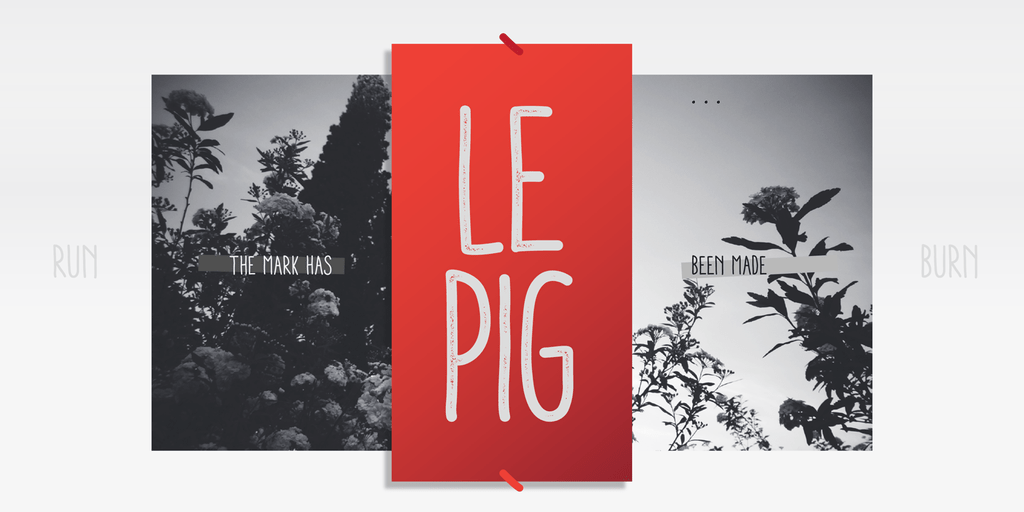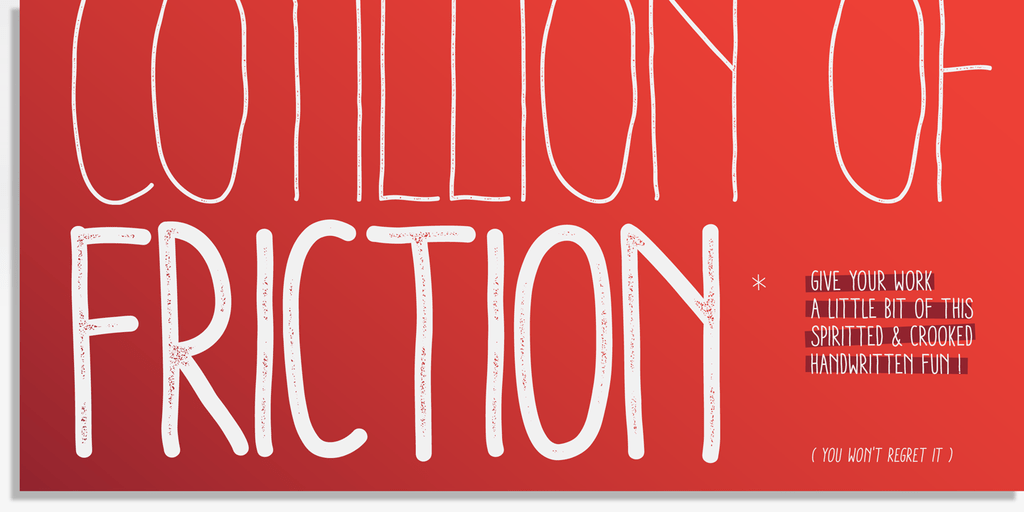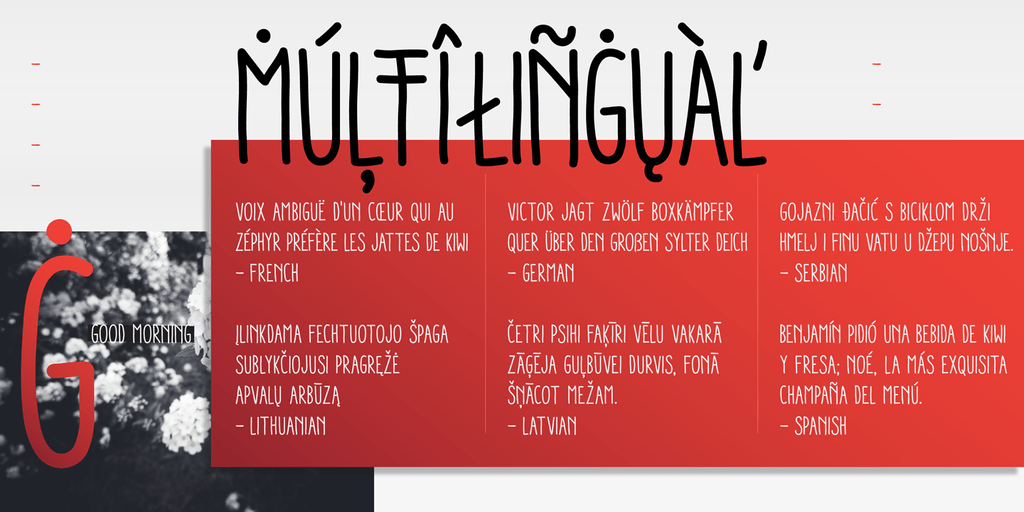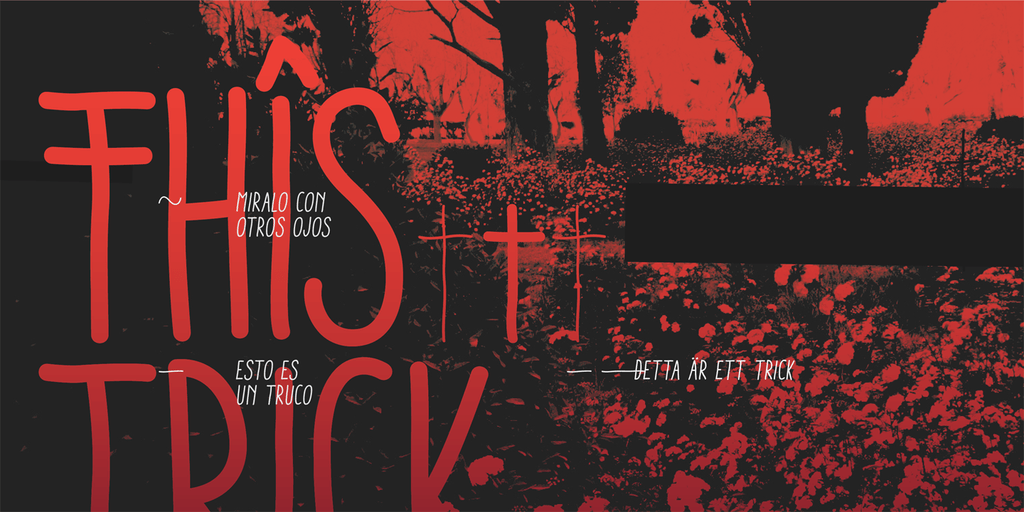
About Aracne Condensed
Aracne Condensed was created as an extended version of the font Aracne. It\’s recommended usage is for display titles, because of its good legibility and quality of glyphs.